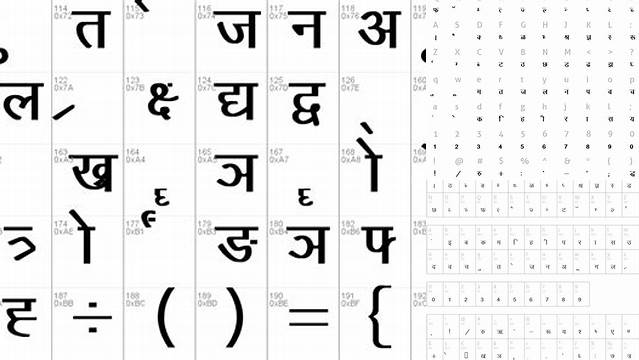
What is Kruti Dev 011 Font?
Kruti Dev 011 is a widely used Hindi font, particularly popular for typing in government jobs, Hindi typing tests, and various official documents. This font is a staple for those who need to type in Hindi using a traditional keyboard layout. Its popularity stems from its user-friendly design and compatibility with numerous platforms and software. If you're diving into the world of Hindi typing, understanding Kruti Dev 011 is crucial. It's not just about the aesthetics; it's about functionality and widespread acceptance. This font has been around for quite some time and has become a standard in many sectors, especially in India. The reason behind its extensive use is its simplicity and the ease with which it can be integrated into various systems. Many older documents and official communications are formatted using Kruti Dev 011, making it an essential tool for anyone working with Hindi text. Moreover, numerous typing tutors and online resources are designed specifically to support this font, further solidifying its importance. The font's distinct character set and layout provide a familiar framework for typists, enhancing both speed and accuracy. For those preparing for government exams or any typing-related assessments in Hindi, Kruti Dev 011 is often the preferred font. Its clear and legible appearance ensures that documents meet the necessary standards and are easy to read, which is paramount in professional environments. In essence, Kruti Dev 011 serves as a bridge between the traditional typing methods and modern digital requirements, making it a timeless choice for Hindi typography.
Why is Kruti Dev 011 So Popular?
There are several reasons why Kruti Dev 011 remains a popular choice for Hindi typing. Firstly, it is a widely recognized standard in government and official sectors. This means that if you're applying for jobs or working in these areas, knowing this font is almost a necessity. Secondly, it is user-friendly and easy to learn, even for those who are new to Hindi typing. The layout is designed in a way that makes it relatively straightforward to get the hang of it, especially if you're familiar with a standard English keyboard. Thirdly, the availability of free download options makes it accessible to everyone. You don't have to worry about purchasing expensive software or fonts; Kruti Dev 011 is readily available for download at no cost. Another reason for its popularity is its compatibility. Kruti Dev 011 works well with most operating systems and word processing software, ensuring that you can use it without compatibility issues. This is a significant advantage, as it allows users to focus on their typing rather than troubleshooting technical problems. The font is also supported by numerous online typing tutors and resources, making it easier for learners to practice and improve their skills. Many institutions and educational centers use Kruti Dev 011 in their typing courses, further cementing its status as a standard. Its widespread adoption means that there is a wealth of support and guidance available for users, from online forums to detailed tutorials. Additionally, the font’s clear and legible design ensures that documents are easy to read, which is essential for professional and official communications. In summary, the combination of its accessibility, ease of use, compatibility, and widespread acceptance makes Kruti Dev 011 a top choice for Hindi typing across various sectors.
Tips and Tricks for Typing in Kruti Dev 011
Typing in Kruti Dev 011 can be efficient once you get the hang of it. Here are some tips and tricks to help you improve your typing speed and accuracy: First, familiarize yourself with the Kruti Dev 011 keyboard layout. This layout is different from the standard English (QWERTY) layout, so it’s crucial to understand where the Hindi characters are located. Many online resources provide visual guides and keyboard layouts that you can refer to. Spend some time studying the layout and practicing typing common words and phrases. Use online typing tutors and software designed for Kruti Dev 011. These tools often provide interactive lessons, typing tests, and feedback to help you improve your skills. Practicing regularly with these resources can significantly boost your typing speed and accuracy. One effective technique is to focus on touch typing. This involves typing without looking at the keyboard, which can greatly increase your speed and reduce errors. Start by learning the home row keys (the middle row of the keyboard) and gradually expand your reach to other keys. Consistent practice is key to mastering touch typing. Another helpful tip is to use shortcut keys. Many word processing programs offer keyboard shortcuts for common tasks, such as formatting text, inserting symbols, and saving documents. Learning these shortcuts can save you time and effort. For example, Ctrl+B (or Cmd+B on macOS) can bold text, and Ctrl+I (or Cmd+I) can italicize it. Additionally, take breaks to avoid fatigue. Typing for extended periods can lead to strain and errors. Short breaks every 20-30 minutes can help you stay focused and prevent mistakes. Get comfortable with common ligatures and compound characters. Kruti Dev 011 has specific ways of representing certain Hindi characters and combinations. Understanding these ligatures and compound characters will help you type more accurately and efficiently. Practice typing common Hindi words and sentences. Repetition is key to building muscle memory and improving your typing speed. Start with simple words and gradually move on to more complex phrases and sentences. Lastly, consider using a keyboard with tactile feedback. Some keyboards provide a slight “click” or tactile response when a key is pressed, which can help improve typing accuracy and speed. By incorporating these tips and tricks into your practice routine, you can become proficient in typing with Kruti Dev 011 and enhance your overall Hindi typing skills.
The Future of Kruti Dev 011 Font
While Kruti Dev 011 has been a staple in Hindi typing for many years, it's important to consider its future in the context of evolving technology and changing user preferences. The landscape of digital typography is constantly evolving, with new fonts and technologies emerging regularly. So, what does the future hold for Kruti Dev 011? One significant trend is the increasing adoption of Unicode fonts, such as Mangal, which offer better compatibility across different platforms and software. Unicode fonts can represent a wider range of characters and symbols, making them more versatile for multilingual typing. As more systems and applications transition to Unicode, the reliance on legacy fonts like Kruti Dev 011 might gradually decrease. However, Kruti Dev 011 still holds a special place in many sectors, particularly in government and official contexts. A vast amount of existing documentation and records are formatted using this font, which means it will likely remain relevant for archival and compatibility purposes for some time to come. In addition, many users are comfortable with the Kruti Dev 011 layout and prefer it for its familiarity and ease of use. The transition to Unicode fonts can be challenging for those accustomed to the specific keystrokes and character mappings of Kruti Dev 011. Therefore, there will likely be a period of coexistence between Kruti Dev 011 and Unicode fonts. Another factor influencing the future of Kruti Dev 011 is the development of conversion tools. These tools allow users to convert documents from Kruti Dev 011 to Unicode formats and vice versa. Such tools can help bridge the gap between legacy and modern systems, making it easier to work with different font encodings. Furthermore, the ongoing efforts to digitize and preserve historical documents might also contribute to the continued use of Kruti Dev 011. Archives and libraries may need to maintain support for this font to ensure the accessibility of their collections. In conclusion, while the future might see a gradual shift towards Unicode fonts, Kruti Dev 011 is likely to remain relevant in specific contexts for the foreseeable future. Its legacy, ease of use, and the vast amount of existing content formatted in this font will ensure its continued importance in the world of Hindi typing.